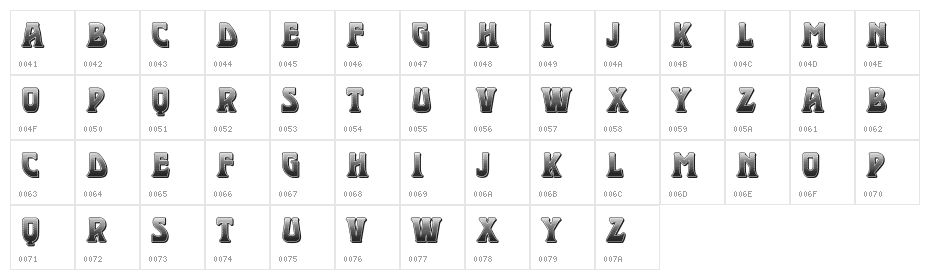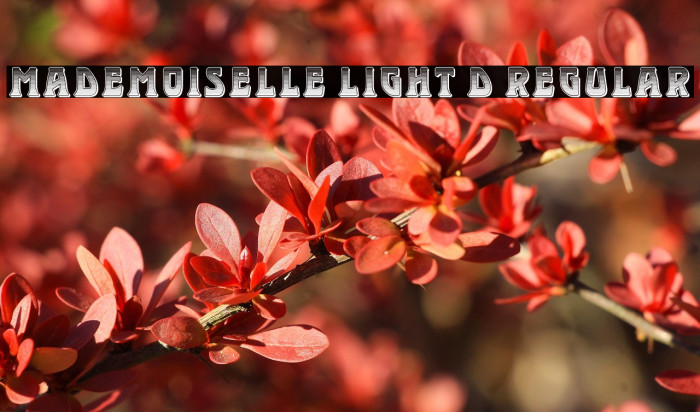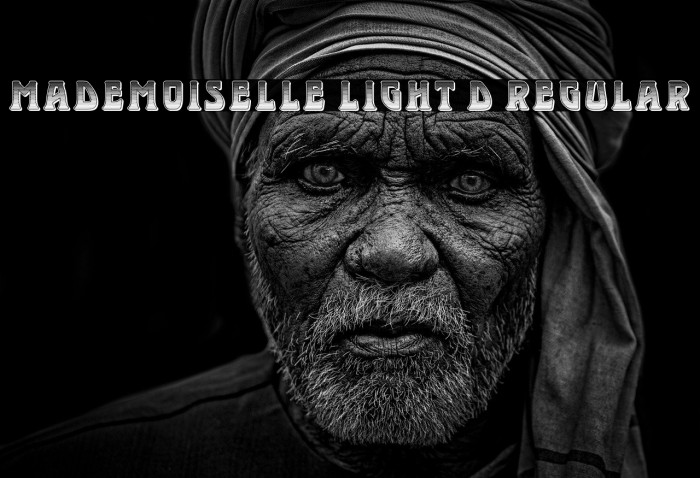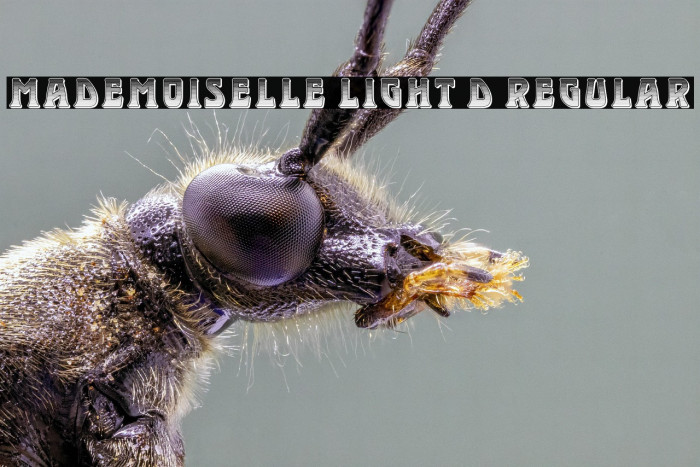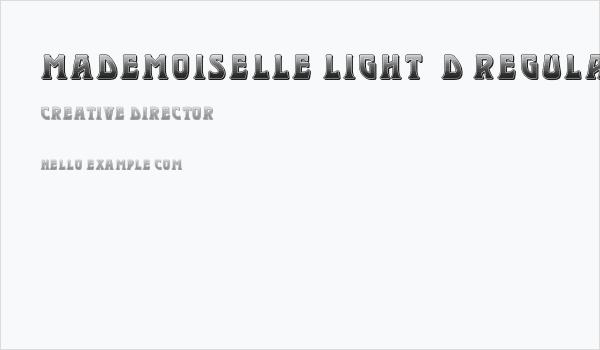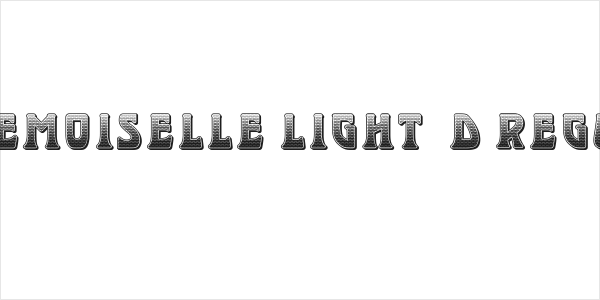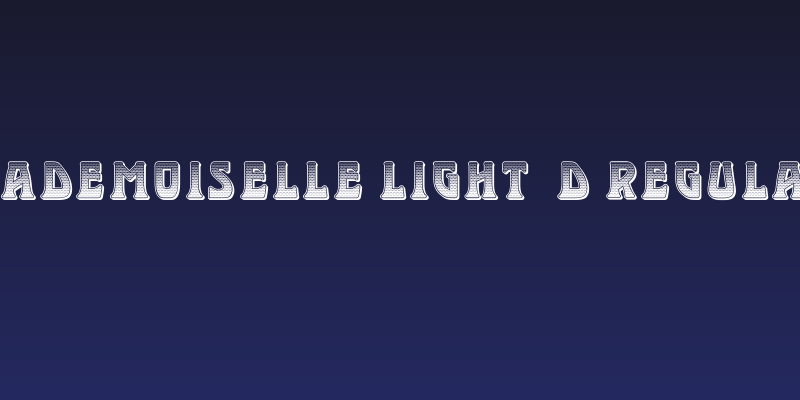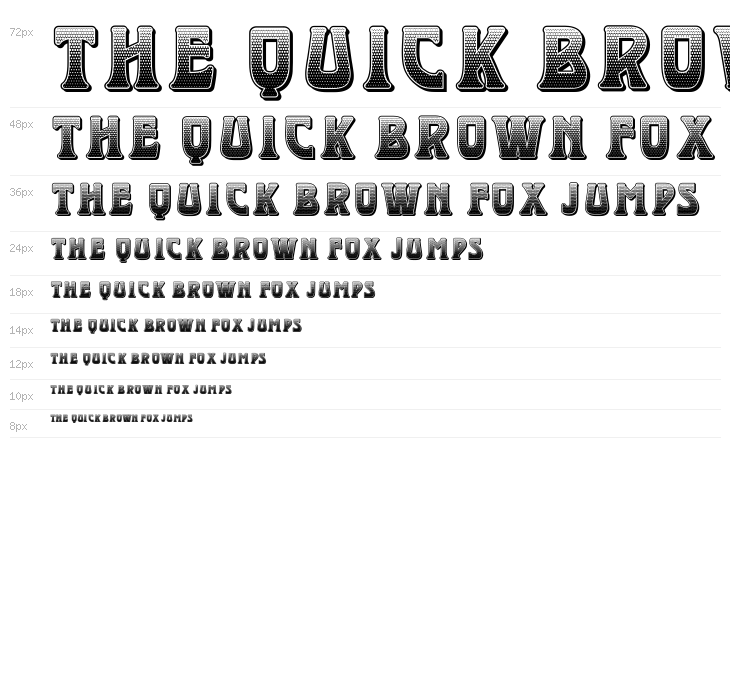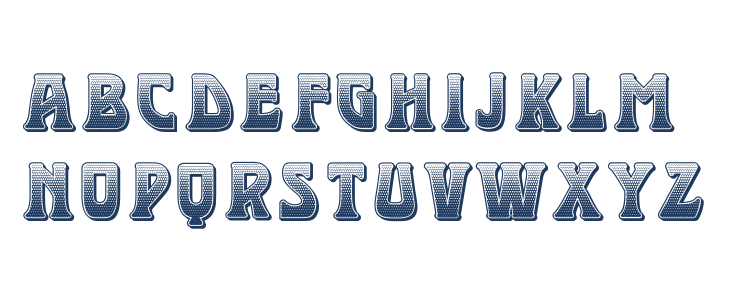
Mademoiselle Light 3D Regular Font
Mademoiselle Light 3D Regular Description
This font features a bold, three-dimensional style with a vintage flair. Each character is designed with a shadow effect that gives it depth and a sense of movement. The letters have a slightly condensed width, enhancing their bold appearance. The intricate detailing within each character adds a textured look, reminiscent of classic poster fonts. This style is both eye-catching and sophisticated, making it suitable for a variety of creative applications. The font's unique design elements make it stand out, perfect for projects that require a strong visual impact.
| Proposed Projects | Ideal for vintage posters, branding, headlines, and any design requiring a bold statement. |